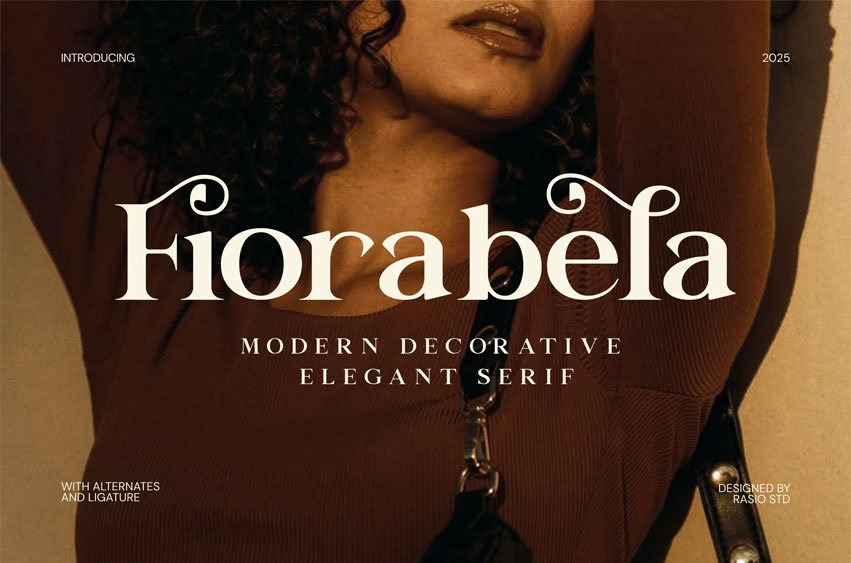
Fiorabela Font is a modern, decorative, elegant serif font that beautifully blends sophistication and artistic flair. Featuring luxurious curves, high contrast strokes, and ornate ligatures, Fiorabela is perfect for fashion branding, upscale packaging, wedding invitations, magazine titles, and editorial design. The font includes alternates and ligatures that enhance typographic elegance and visual storytelling. Its stylish yet readable characters make it ideal for high-end projects seeking a refined aesthetic with a feminine or premium edge.
Relevance and Use Cases is perfect for fashion branding, luxury packaging, editorial headlines, wedding invitations, logo design, upscale product labels, beauty and cosmetic branding, modern magazine layouts, boutique marketing materials, premium stationery, feminine branding, high-end advertising campaigns, elegant social media graphics, clothing tags, jewelry catalogues, brand identity design, lookbooks, formal event invitations, signature label design.